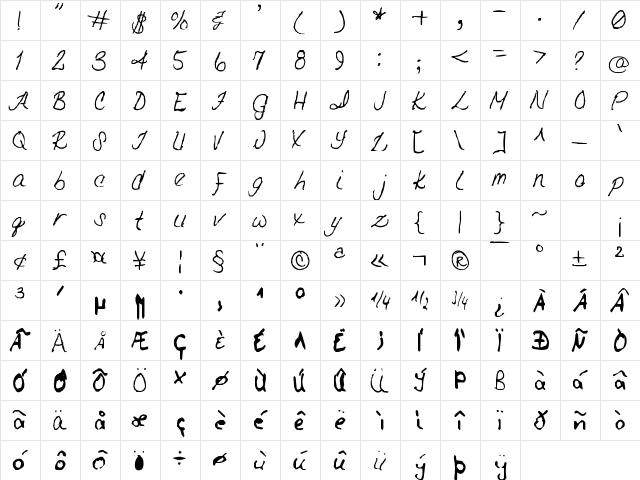
QESaraWisema Regula
Design Context for QESaraWisema Typeface
QESaraWisema is a composed and adaptable typeface that performs quietly and consistently across a wide range of design contexts.